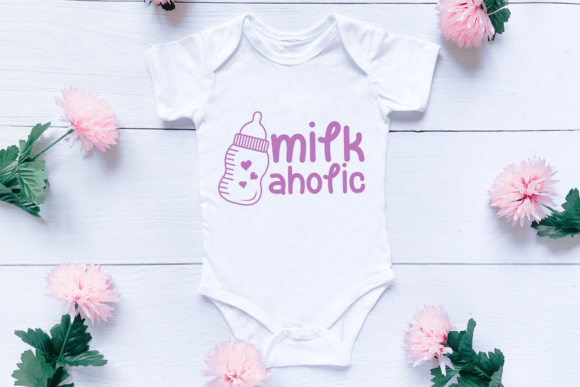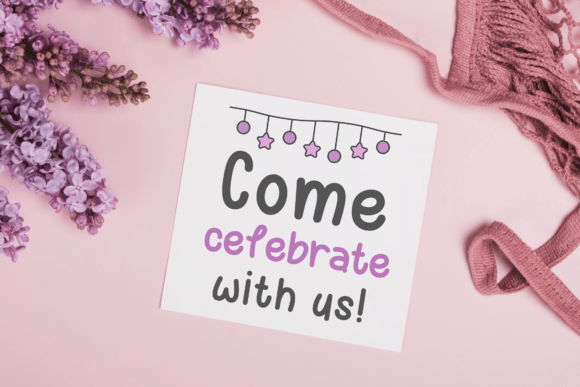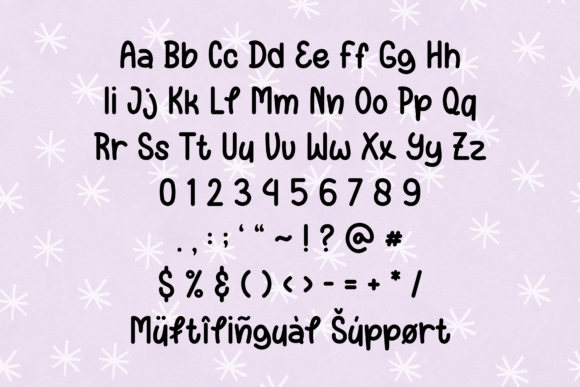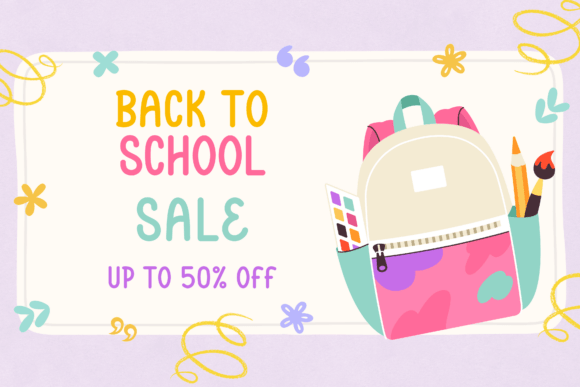
Introduction to Lively Sprouts Font
Have you ever stumbled upon the perfect font while brainstorming a creative project, and it instantly brings your idea to life? That’s exactly what happened when I discovered the Lively Sprouts Font. Its vibrant, handwritten style is perfect for adding a touch of personality to social media posts, digital planners, and even decor crafts.
As a designer, I know how valuable it is to have access to high-quality design resources that can elevate our creative projects. The Lively Sprouts Font is a fantastic addition to any designer’s toolkit, offering a wide range of characters, including uppercase and lowercase letters, numbers, and international characters. With its transparent background, it’s easy to use as a free download in various design applications, making it a must-have for any creative project.
Key Features of Lively Sprouts Font
- Unique and playful design, perfect for creative projects that require a touch of whimsy.
- Perfect for use in digital designs, including social media graphics, website headers, and more.
- Designed to be highly legible, with a clear and readable font size of up to 48 points.
Honest Review: Lively Sprouts Font
I recently stumbled upon the Lively Sprouts Font while searching for a design resource to enhance a creative project. As a designer, I was excited to give it a try.
Here are some of the things that work well with the Lively Sprouts Font: ✨
- Unique and playful design
- High quality and crisp lines
- Works well for a variety of creative projects
- The font may not be suitable for formal or professional projects
- Some users may find the design too whimsical or overwhelming
Overall, I would say that the Lively Sprouts Font is a great resource for designers looking for a high-quality, free font to add some creativity to their projects. While it may not be suitable for all types of projects, it’s definitely worth checking out.
Lively Sprouts Font is a high-quality, free design resource perfect for creative projects. This font features a transparent background, making it easy to incorporate into any design. With its unique and playful style, Lively Sprouts Font is ideal for projects requiring a touch of whimsy.
Getting the Most Out of Lively Sprouts Font
To get the most out of Lively Sprouts Font, consider the following tips:
- Pair Lively Sprouts Font with other fonts to create a unique and visually appealing design.
- Use the font in conjunction with other design elements, such as graphics and images, to create a cohesive look.
Lively Sprouts Font is ideal for a variety of creative projects, including:
- Children’s book illustrations
- Party invitations
Alternatives to Lively Sprouts Font
Playfair Display is a high-quality, elegant font suitable for creative projects that require sophistication and style. It features a beautiful, cursive design with a transparent background, making it perfect for use on dark or textured backgrounds.
Compared to Lively Sprouts Font, Playfair Display has a more refined and classic look, while Lively Sprouts is more playful and whimsical. Use Playfair Display for high-end design projects, such as luxury branding or magazine covers.
Great Vibes is a free download font that offers a fun and lively design, perfect for creative projects that require a sense of energy and playfulness. It features a transparent background and is ideal for use on light or textured backgrounds.
Compared to Lively Sprouts Font, Great Vibes has a more casual and laid-back look, while Lively Sprouts is more vibrant and dynamic. Use Great Vibes for design projects that require a relaxed and approachable tone, such as social media graphics or advertising campaigns.
Can I modify the Lively Sprouts Font for my specific design needs?